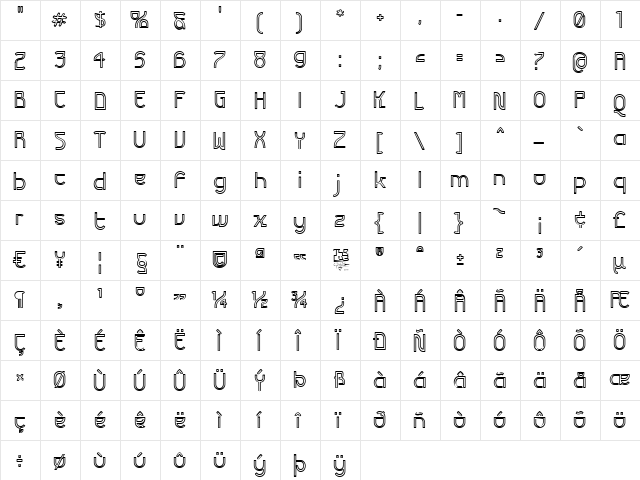
Futurex Variation Alpha Hollow Regular
| Designer | Graham Meade and Apostrophic Laboratories |
Design Context for Futurex Variation Alpha Hollow Typeface
Futurex Variation Alpha Hollow has a distinctly futuristic character, with geometric precision and clean angles that feel at home in technology, gaming, and sci-fi contexts.